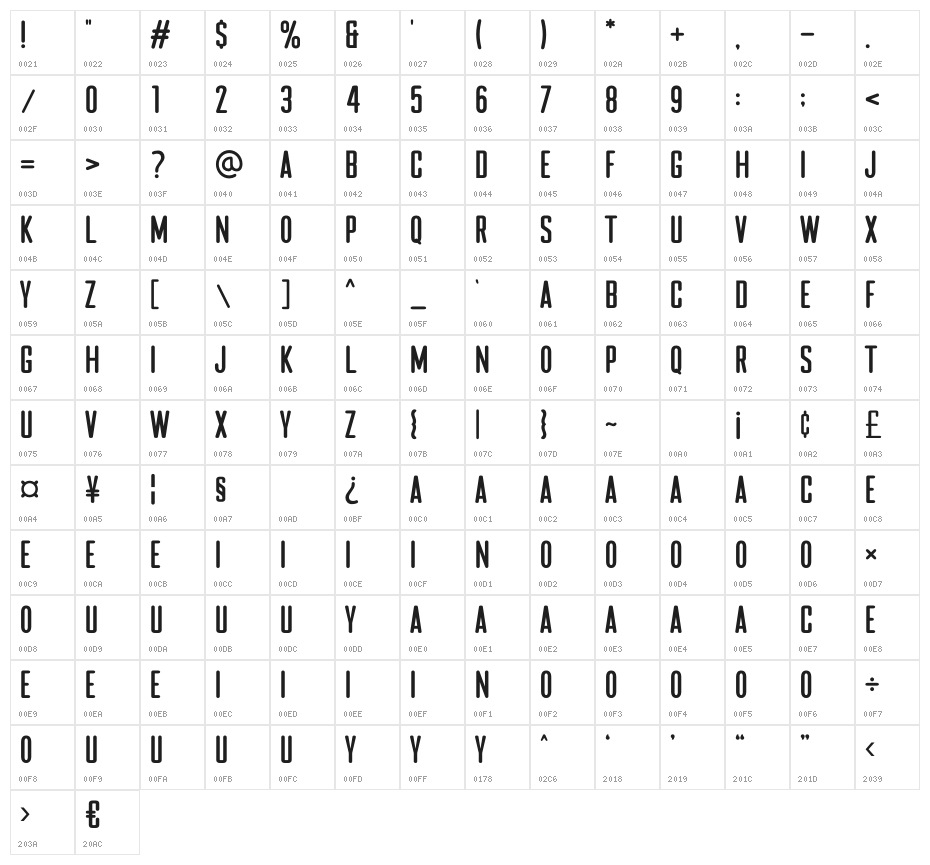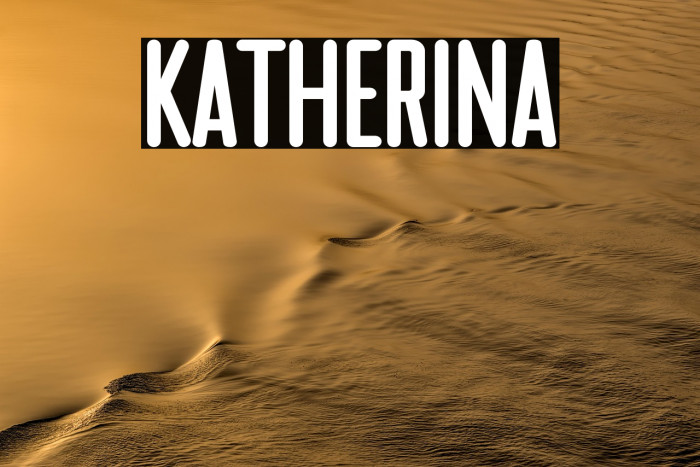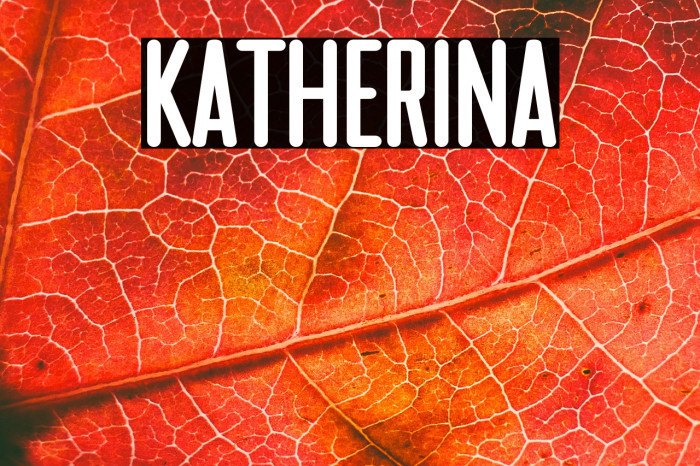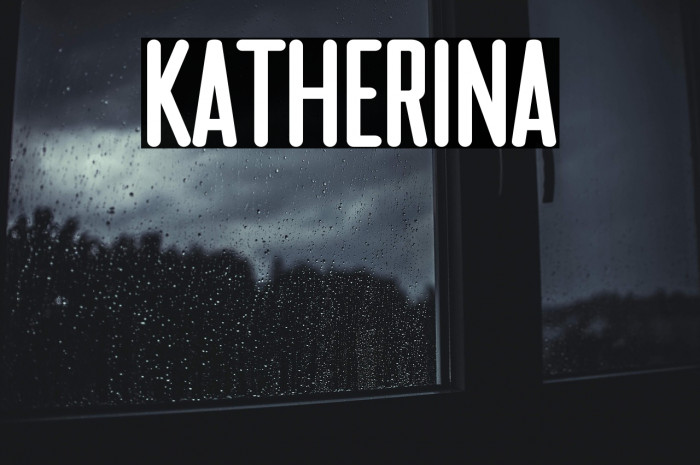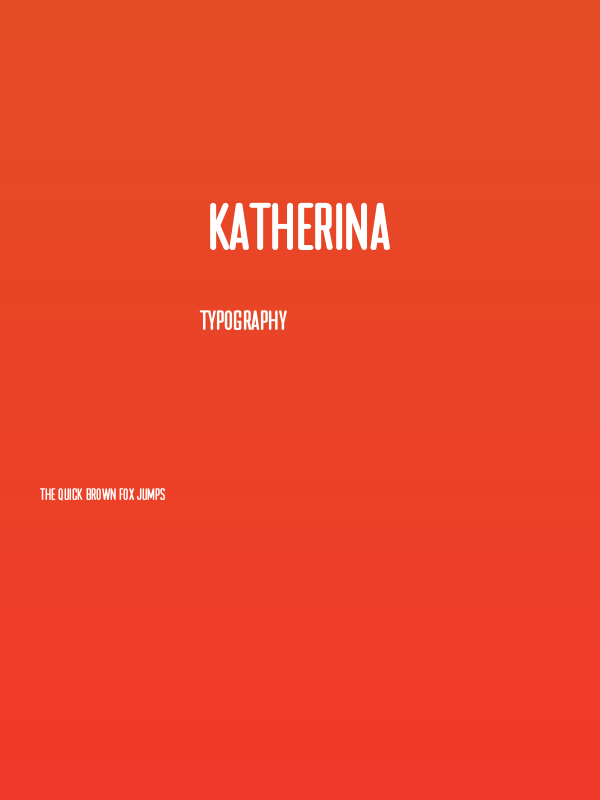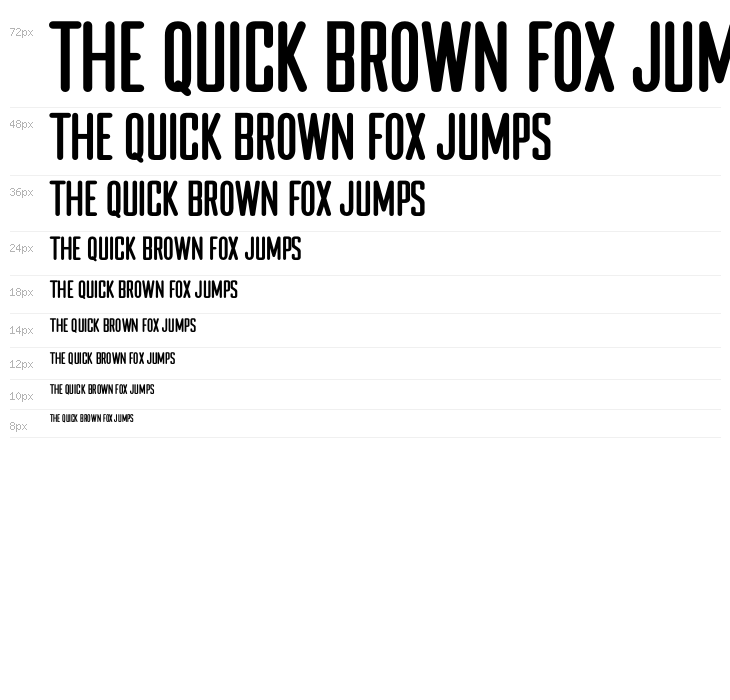
Katherina Font
Katherina Description
This font features a bold and modern design with rounded edges that give it a friendly and approachable appearance. The characters are tall and slightly condensed, providing a sleek and streamlined look. The uniform stroke width across all characters ensures consistency and readability, making it suitable for various design applications. The numbers and special characters maintain the same style, ensuring a cohesive look throughout. Its clean lines and contemporary feel make it versatile for both digital and print media.
| Proposed Projects | Ideal for branding, advertising, posters, and digital media where a modern and approachable look is desired. |